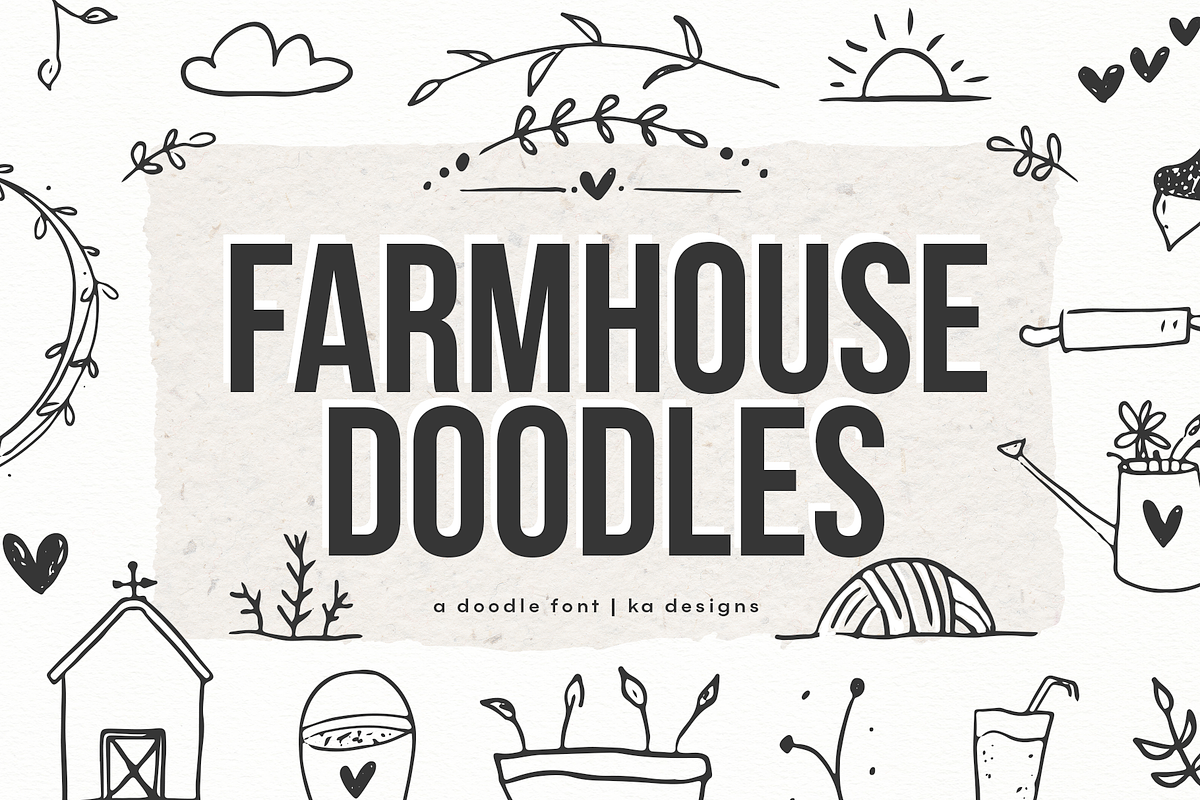
Farmhouse Doodles Font Free Download is a charming and whimsical typeface that brings hand-drawn farmhouse vibes straight into your designs. Packed with playful doodles and cozy character, this font is perfect for DIY projects, farmhouse signs, craft labels, kitchen decor, and rustic-themed branding.
Its handcrafted style adds warmth and personality, making it ideal for invitations, stickers, mugs, and social media graphics with a homey, heartfelt feel. Whether you're designing for a small shop or a personal creative project, Farmhouse Doodles makes every design feel welcoming and one-of-a-kind. Farmhouse Doodles Font Free Download allows you to try out its adorable features for personal use before purchasing a commercial license.
Add a touch of country charm with Farmhouse Doodles — the perfect font for cozy, crafty creativity.